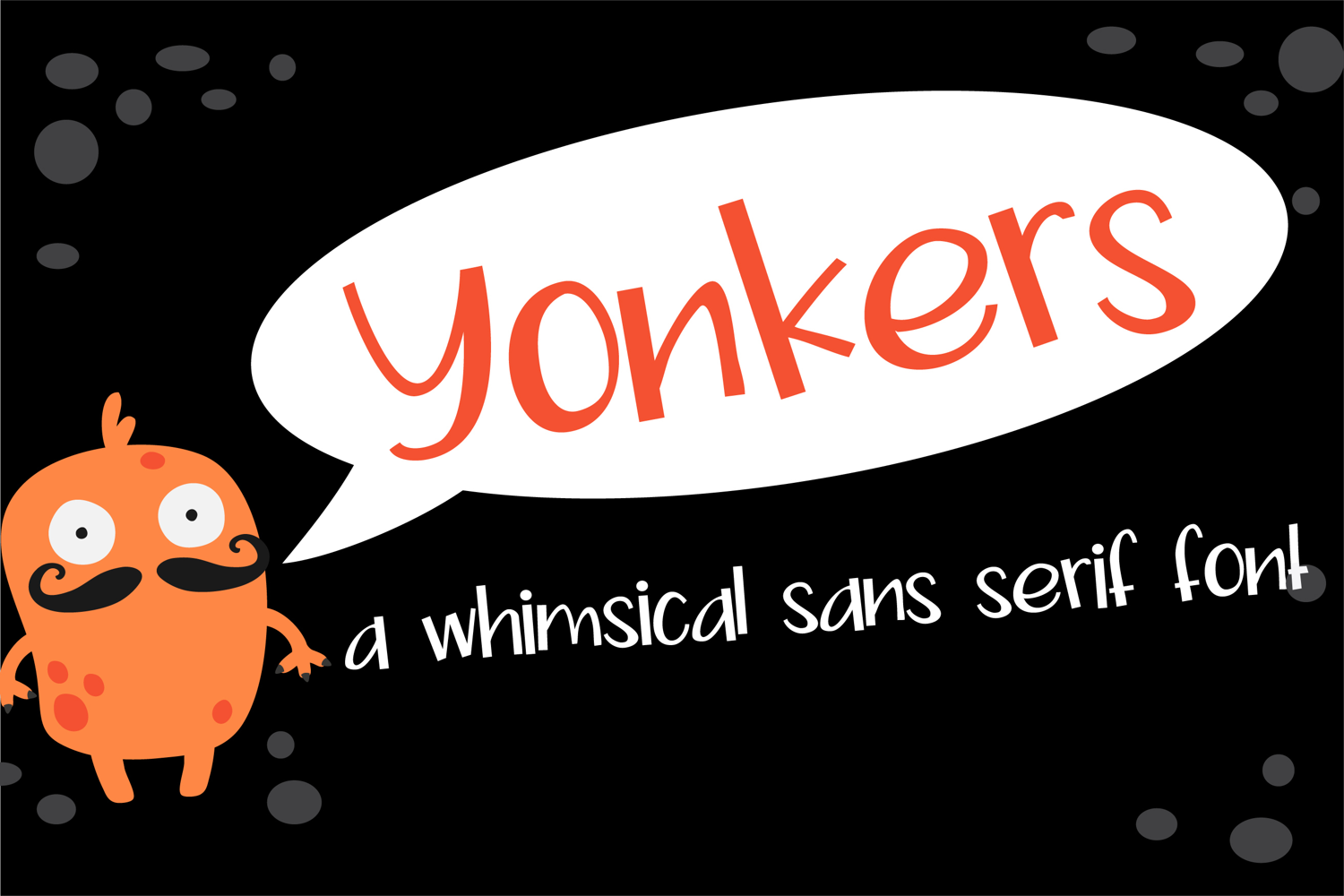
Yonkers Whimsical Hand-Drawn Sans Serif Font
Yonkers is a whimsical hand-drawn sans serif font with tall, slender letters and a delightfully quirky personality. Its playful, casual style is perfect for children’s designs, greeting cards, invitations, classroom projects, crafts, logos, and cheerful social media graphics.